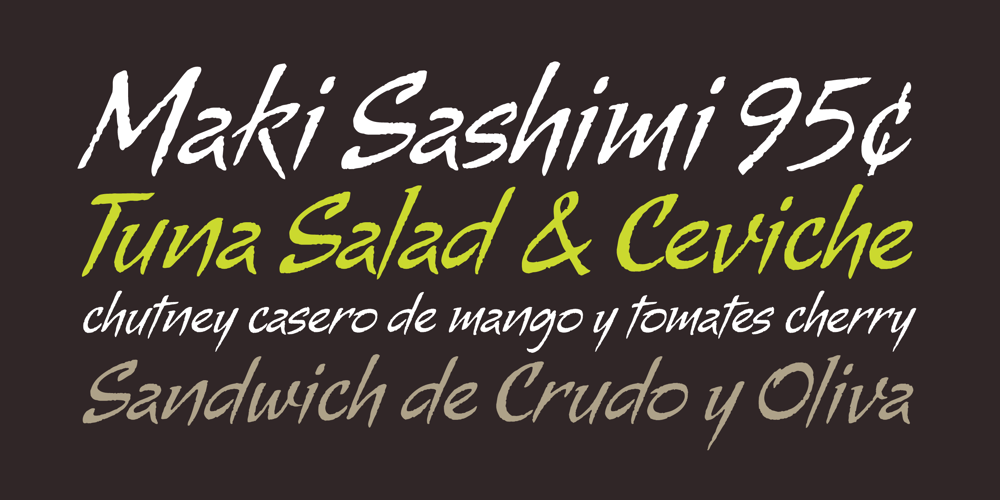
Alma
Alma font
Alma Font Family was designed by Alejandro Paul, Angel Koziupa and published by Sudtipos. Alma contains 1 styles and family package options. From the technical hand of Alejandro Paul and the creative jungle in the mind of Angel Koziupa, comes a wild-natured script. Alma may appear slightly weathered, but still maintains a sharp and determined face. The casual strokes are at times pointed, yet ultimately playful. Released in OpenType format to expand possibilities of use with lots of alternates when used with OpenType-aware applications such as AdobeCS.